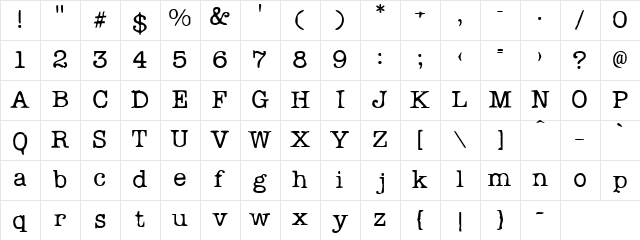
Problem Secretary Normal Problem Secretary Normal
Design Context for Problem Secretary Normal
Problem Secretary Normal is a composed and adaptable typeface that performs quietly and consistently across a wide range of design contexts.
Pro Tip: Use Problem Secretary Normal in both headline and body roles to test its range before committing to a single application.